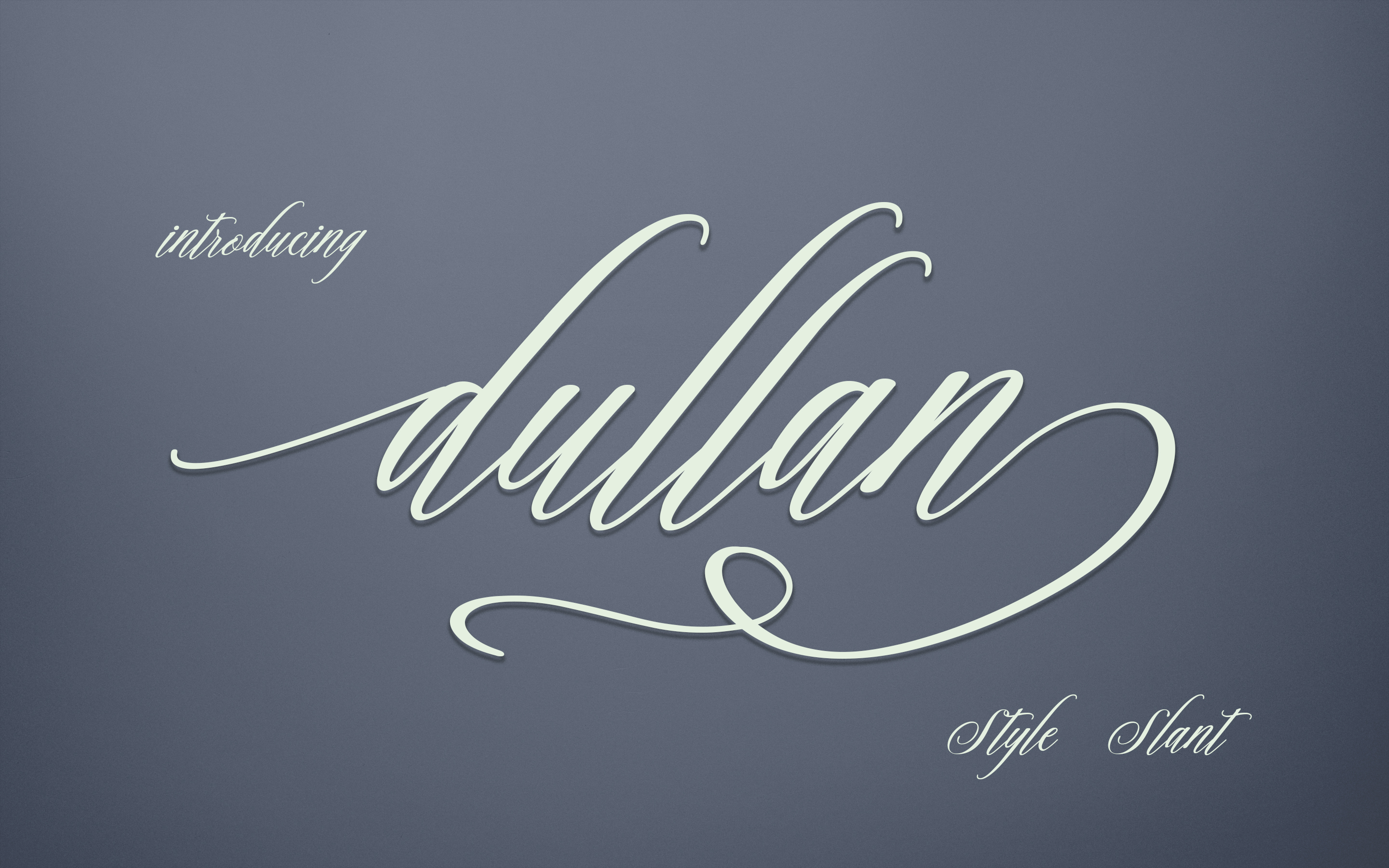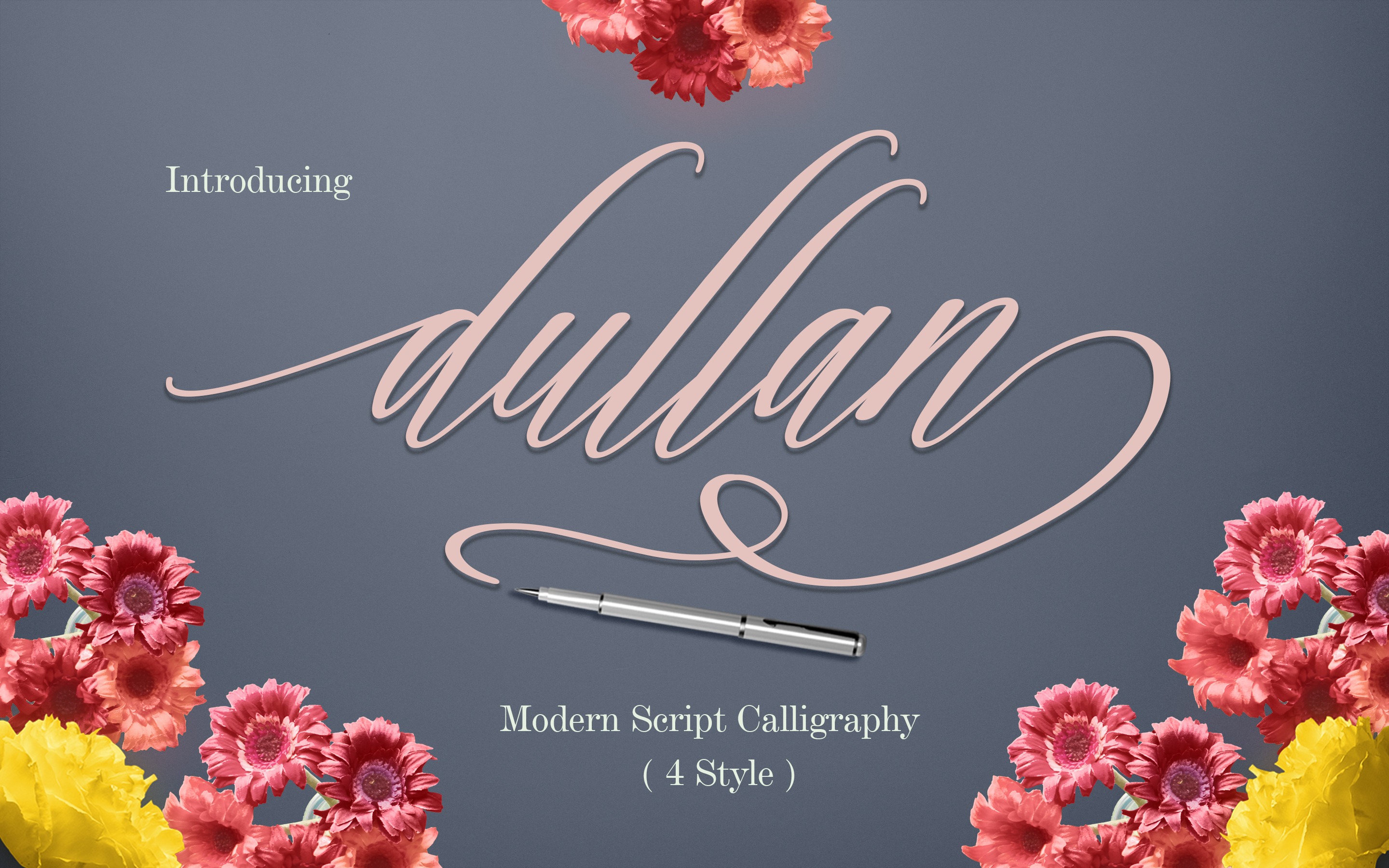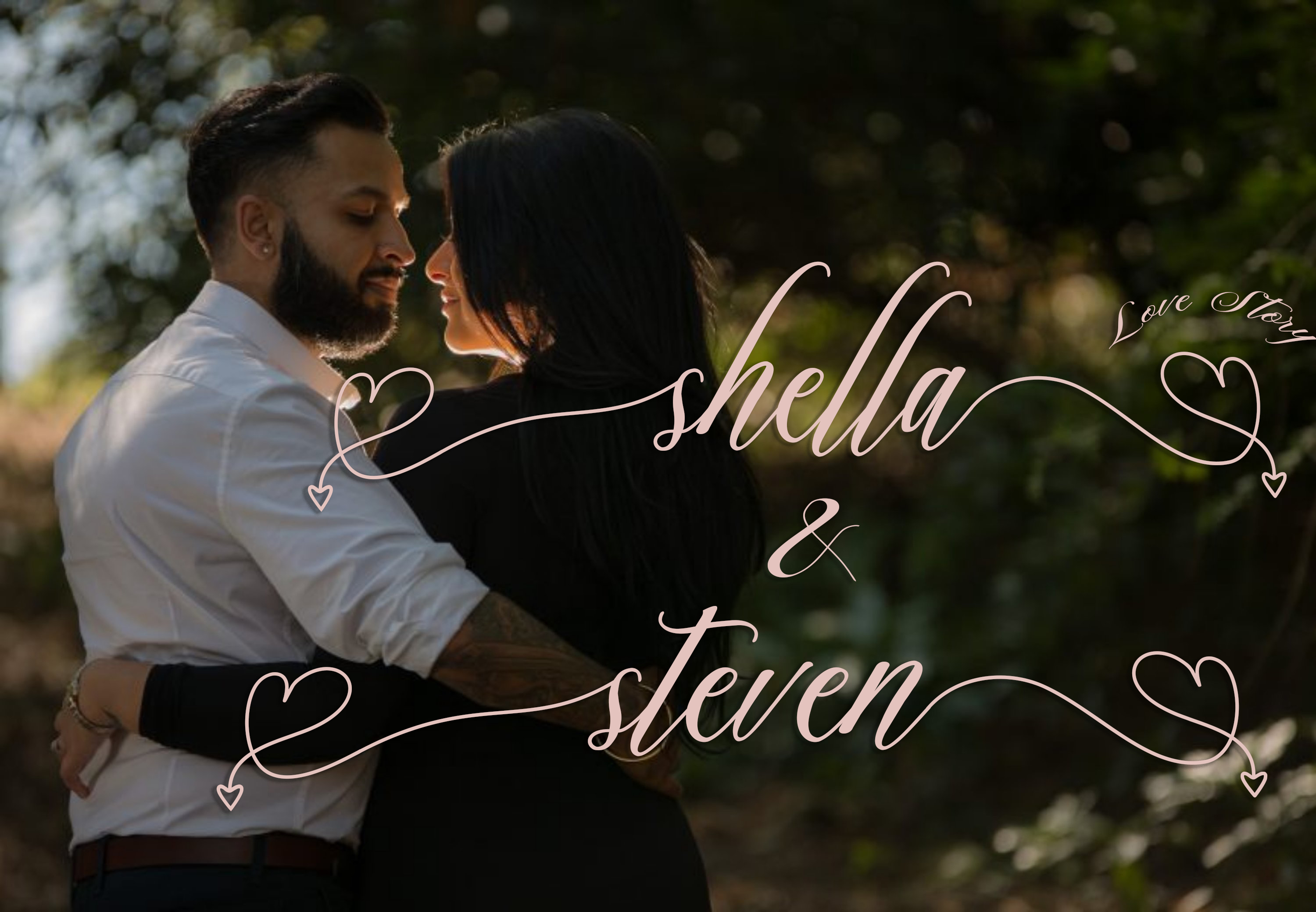
The Dullan Font: A Modern Calligraphy Style Font Family for Creative Projects
Have you ever been in the middle of a design project, and suddenly, you’re stuck on finding the perfect font? I recall a recent experience where I was working on a branding project for a boutique client, and I just couldn’t find a font that captured the elegance and sophistication I was looking for. That’s when I stumbled upon the Dullan font family, and it completely transformed my design. In this article, I’ll share my experience with the Dullan font, its features, and how to make the most of it in your creative projects.
What is the Dullan Font?
The Dullan font family is a modern calligraphy style font that consists of four stunning fonts: Dullan Script Regular, Dullan Script Bold, Dullan Script Slant, and Dullan Script Collage. This font family is packed with impressive features, including stunning swashes, extras, multilingual support, and many OpenType features.
An Honest Review of the Dullan Font
What I Love About the Dullan Font ✨
- 💫 Stunning swashes and extras that add a touch of elegance to any design
- ✅ Multilingual support, making it perfect for global projects
- 🌈 OpenType features that allow for endless creative possibilities
- 📚 Four font styles to choose from, offering versatility and flexibility
While the Dullan font is amazing, there are a few minor quirks to be aware of:
- 🤔 Some users may find the font a bit challenging to read in smaller sizes, so it’s best to use it for headlines or titles.
- ⚠️ The font may not be suitable for body text or long paragraphs.
The Backstory of the Dullan Font
The Dullan font was designed by a team of talented typographers who aimed to create a modern calligraphy style font that’s both elegant and versatile. Inspired by traditional calligraphy, the Dullan font combines classic techniques with modern digital tools to create a unique and stunning font family.
Q: What type of projects is the Dullan font best suited for?
A: The Dullan font is perfect for creative projects that require a touch of elegance and sophistication, such as branding, packaging, and advertising.
Q: Is the Dullan font compatible with multiple languages?
A: Yes, the Dullan font supports multiple languages, making it a great choice for global projects.
Q: Can I use the Dullan font in digital and print projects?
A: Absolutely! The Dullan font is versatile and can be used in both digital and print projects, from social media graphics to business cards and brochures.